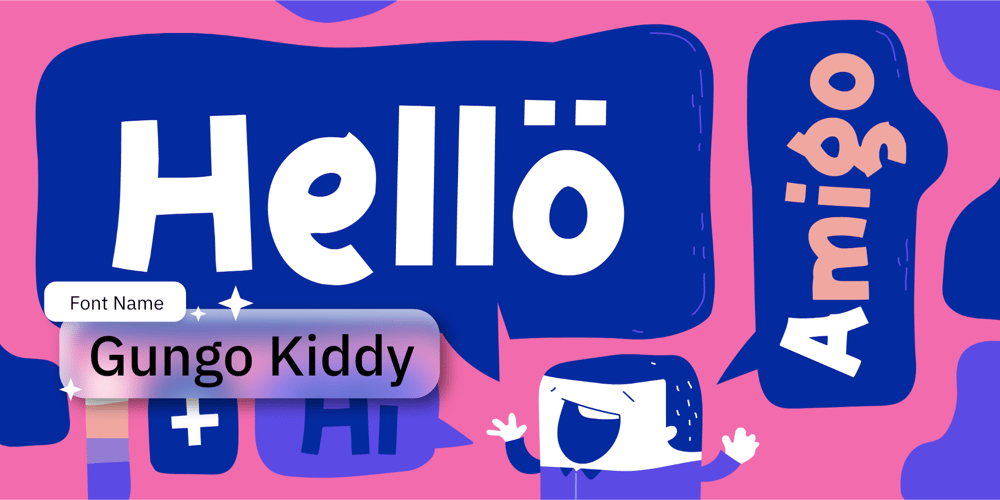
Gungo Kiddy Font Family was designed by Wahyu Eka Prasetya, Afiat Sukmaraga and published by Hati. Gungo Kiddy contains 1 styles and family package options. Crafting a new font is akin to painting a canvas with letters that dance with youthful exuberance and effortless charm. Imagine a typeface where each stroke is imbued with a sense of joy and informality, where letters sway and curve playfully, inviting readers into a world of relaxed communication. This font whispers of carefree afternoons and spontaneous laughter, capturing the essence of a carefree spirit. Enjoy our new font!.